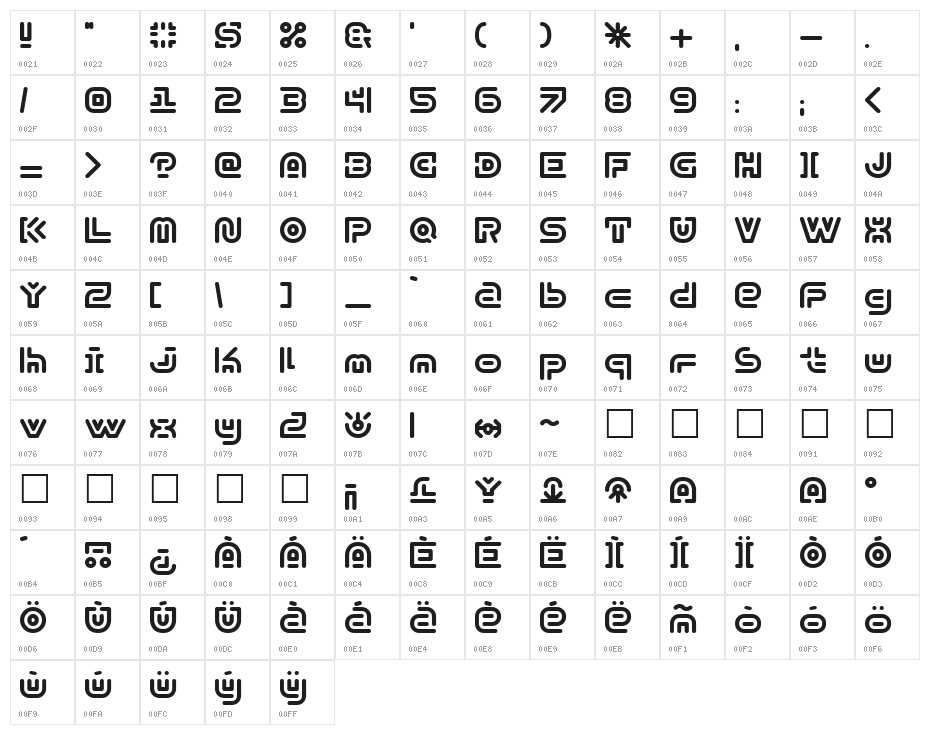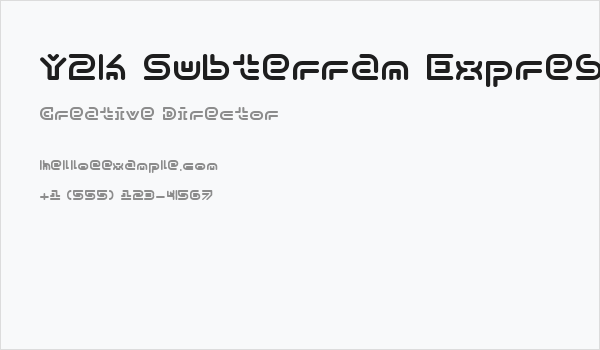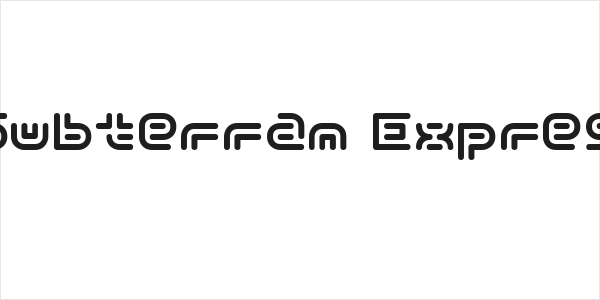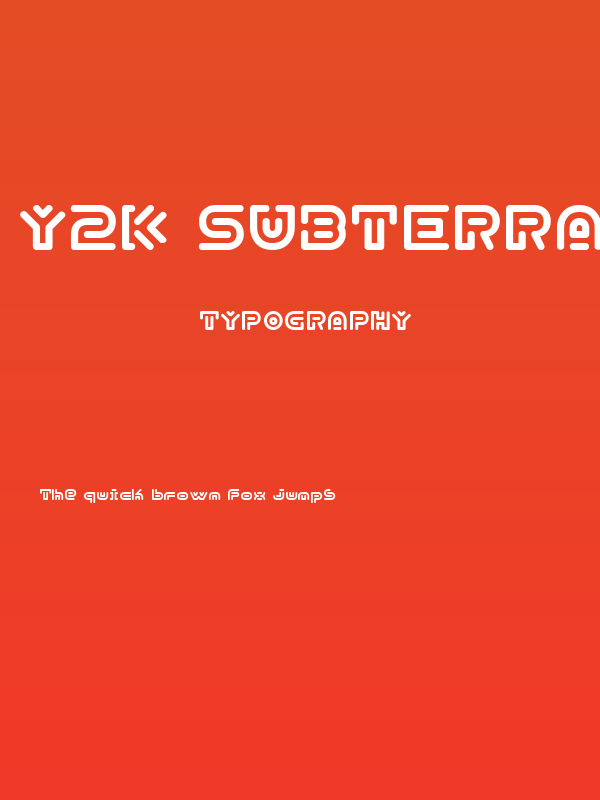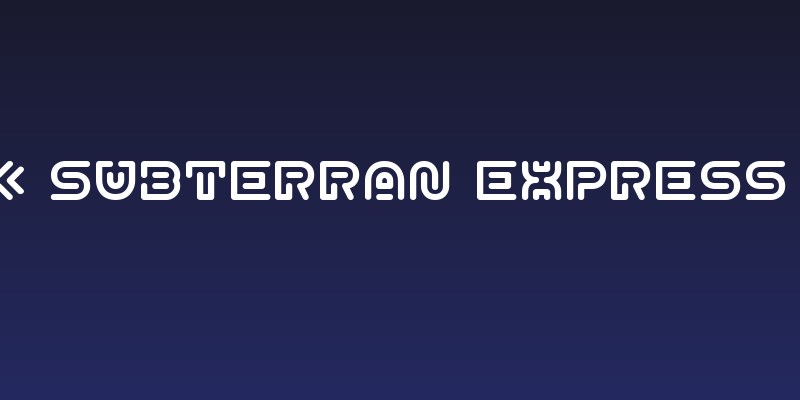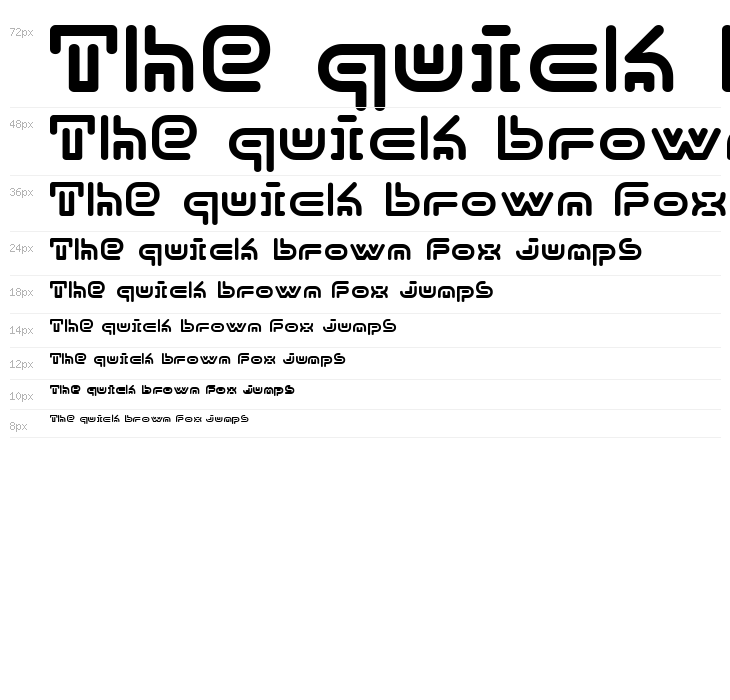
Y2k Subterran Express KG Font
Y2k Subterran Express KG Description
This font features a futuristic and geometric design with rounded edges and a bold presence. The characters are constructed with consistent line thickness, creating a uniform and cohesive look. The style is reminiscent of digital or technological themes, with a playful yet structured appearance. The uppercase and lowercase letters maintain a similar width, contributing to a balanced and harmonious aesthetic. The numerals and special characters follow the same design principles, ensuring a seamless integration across all elements. This font is ideal for projects that require a modern and innovative touch.
| Proposed Projects | Ideal for tech branding, digital interfaces, video game titles, and futuristic-themed posters. |